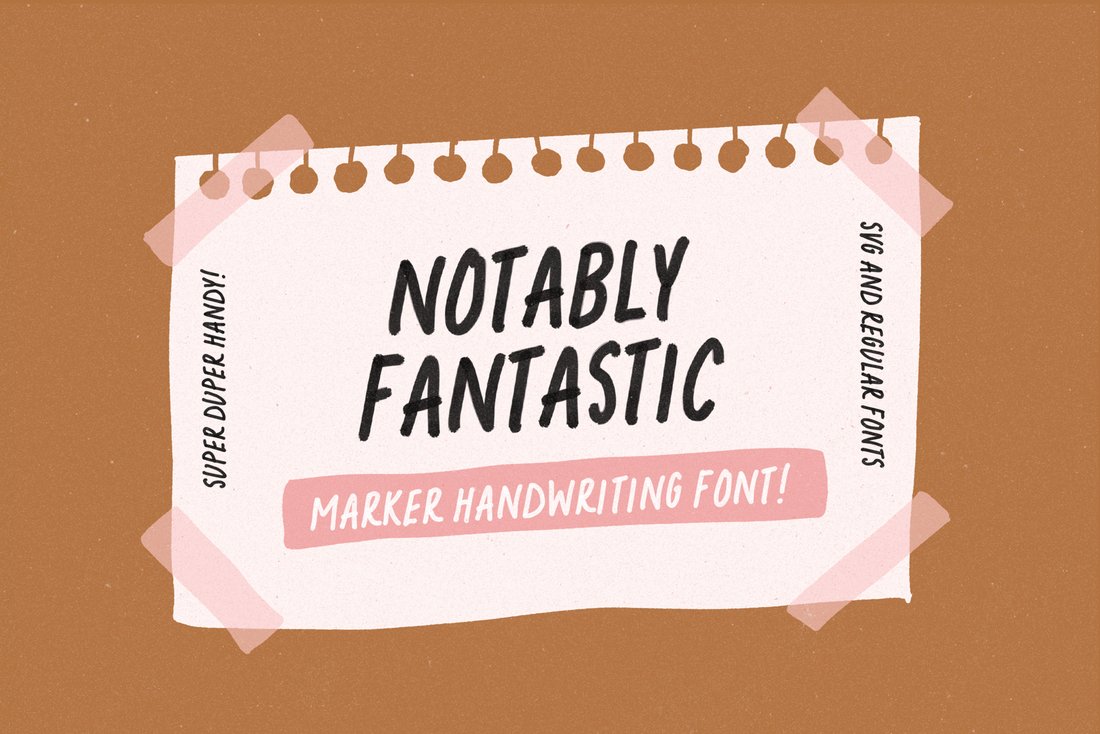
Notably Fantastic SVG Font
Say hello to Notably Fantastic! A handy All-caps Marker style SVG font - neat but natural!
Perfect for illustrations, Invites, greetings, quotes, quirky branding, and when a note-style effect is needed :)